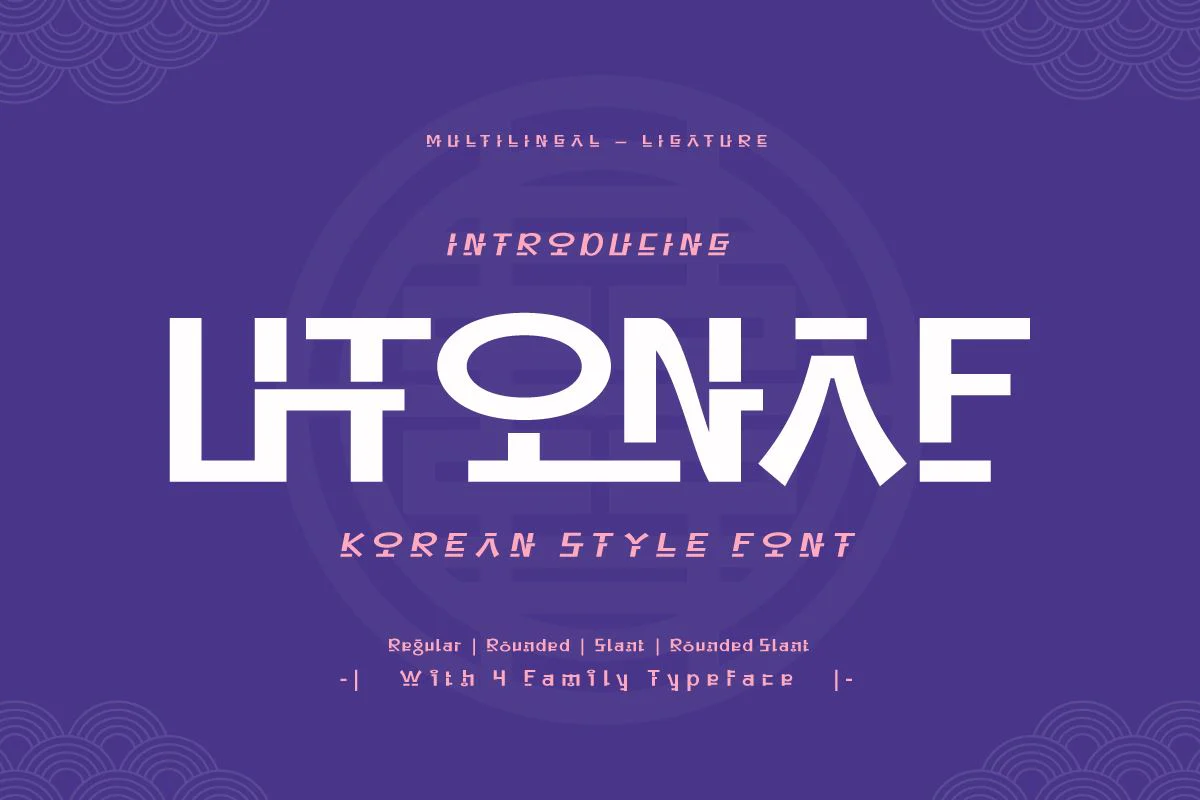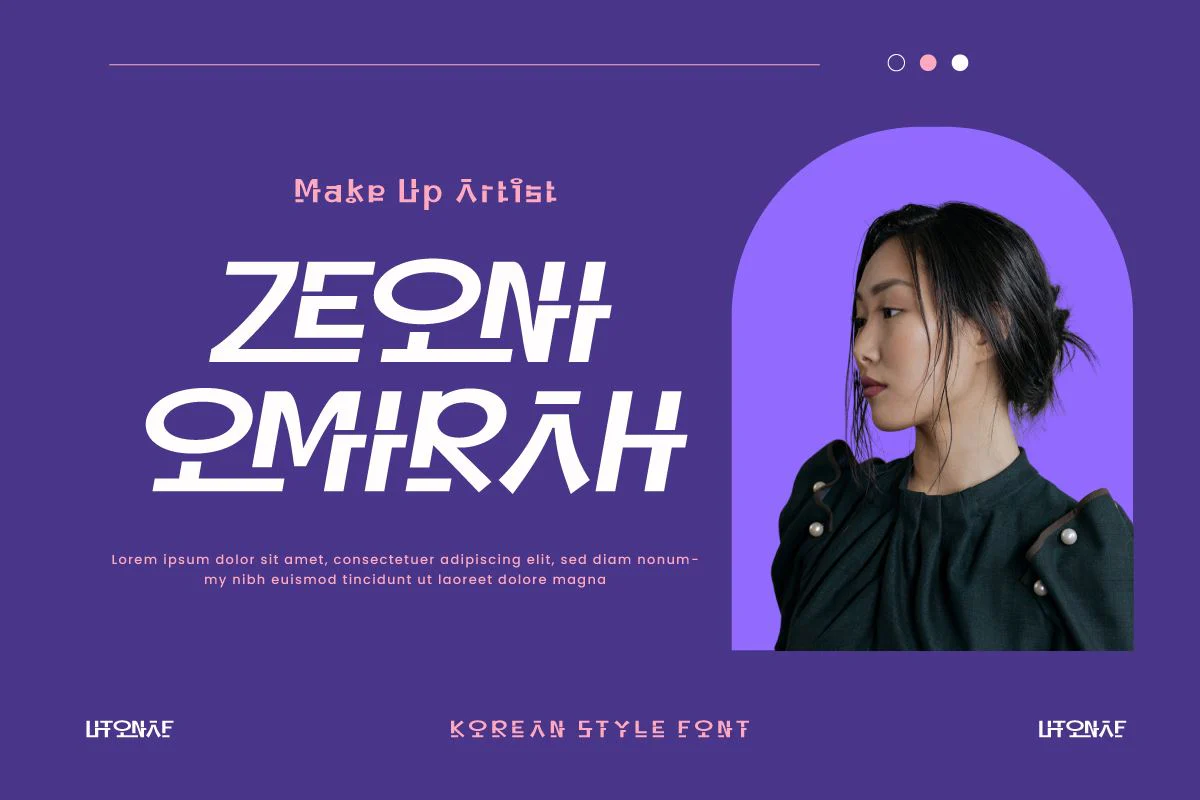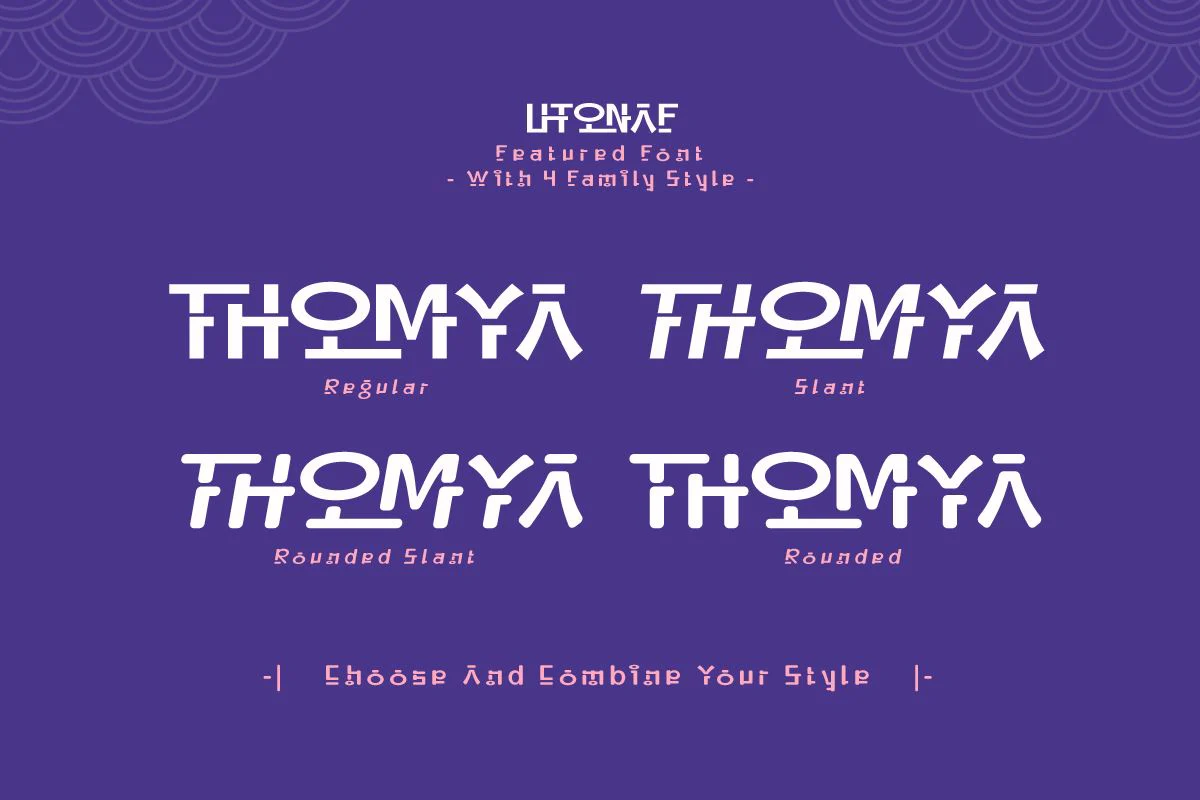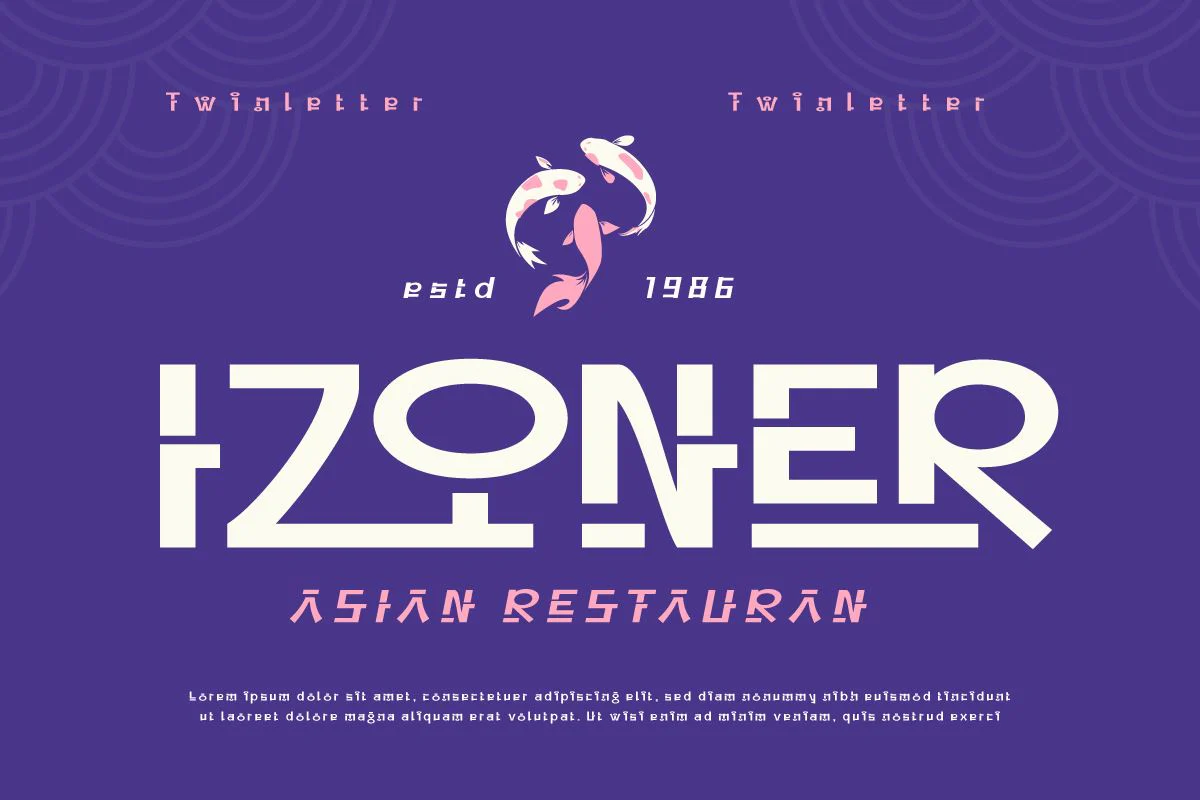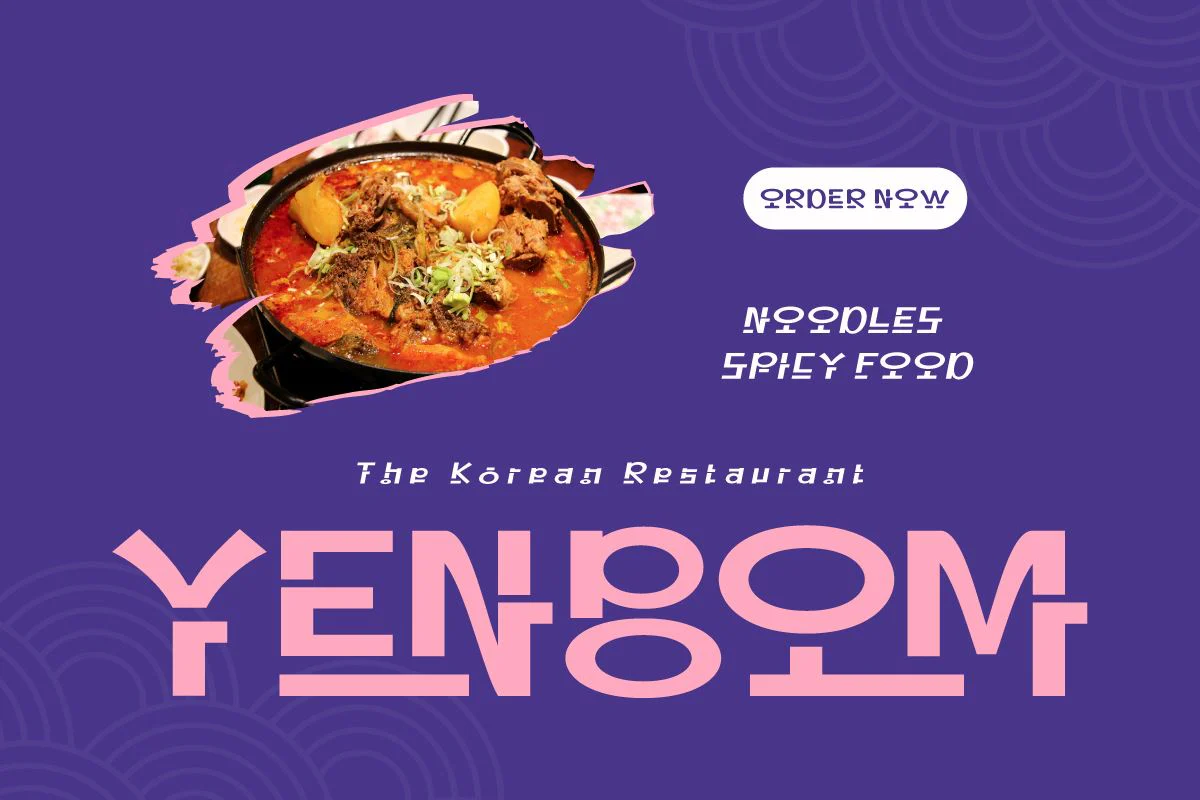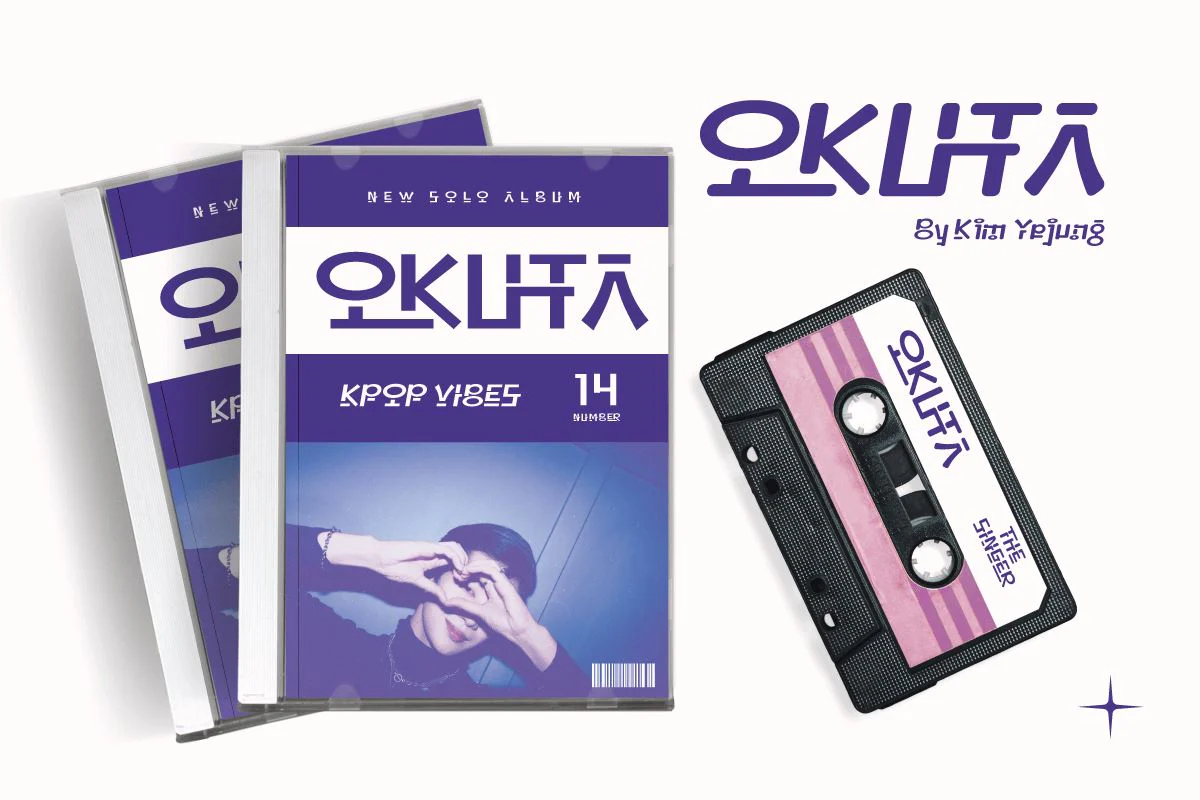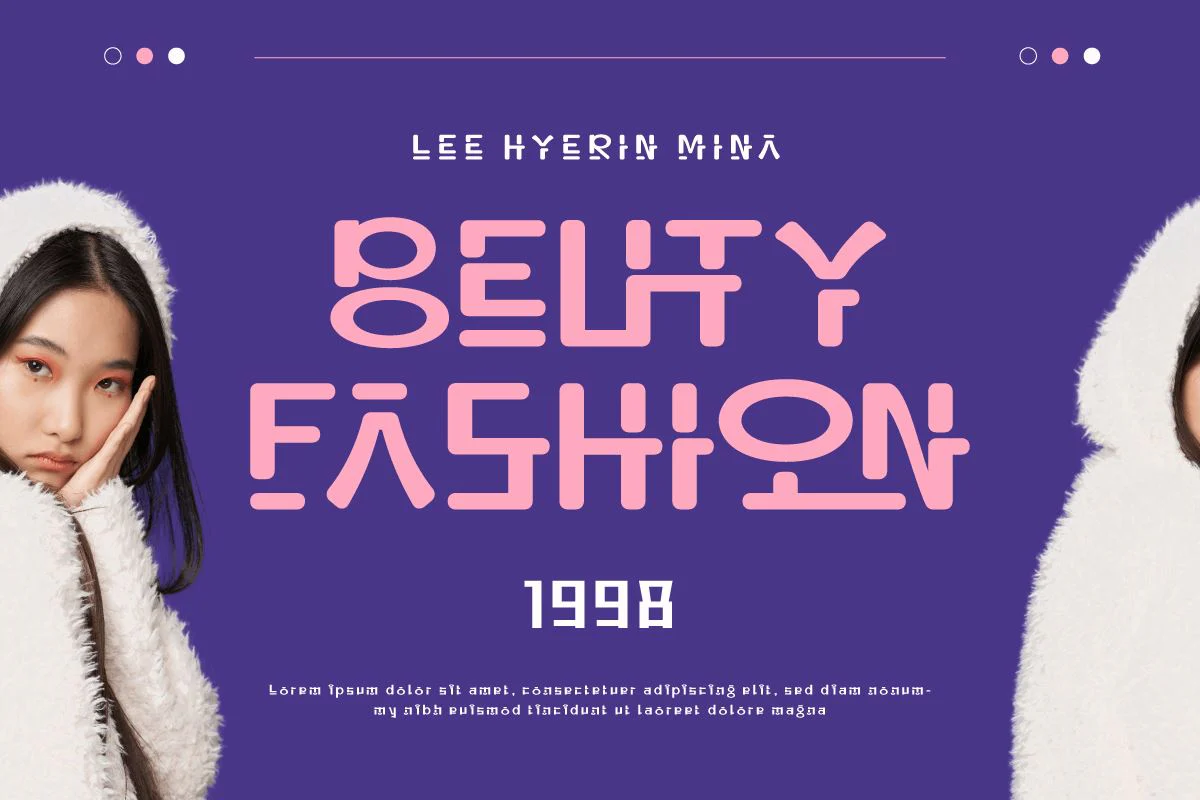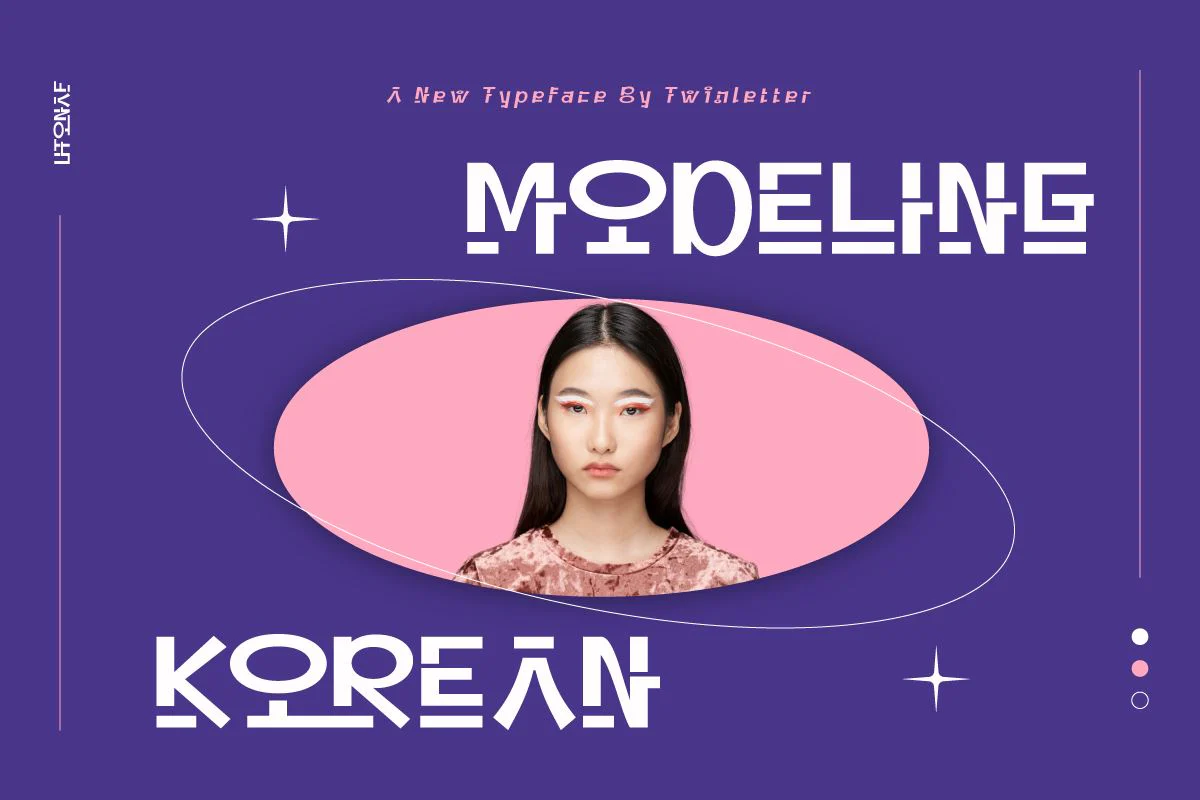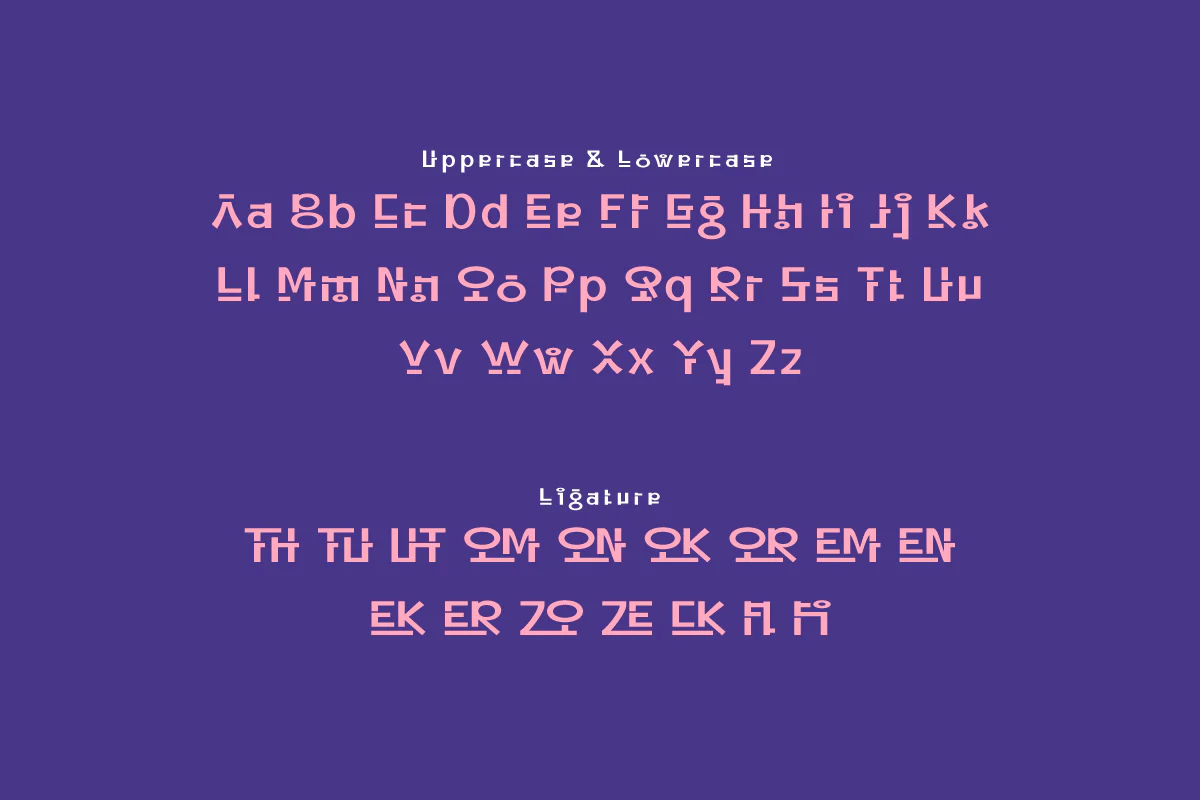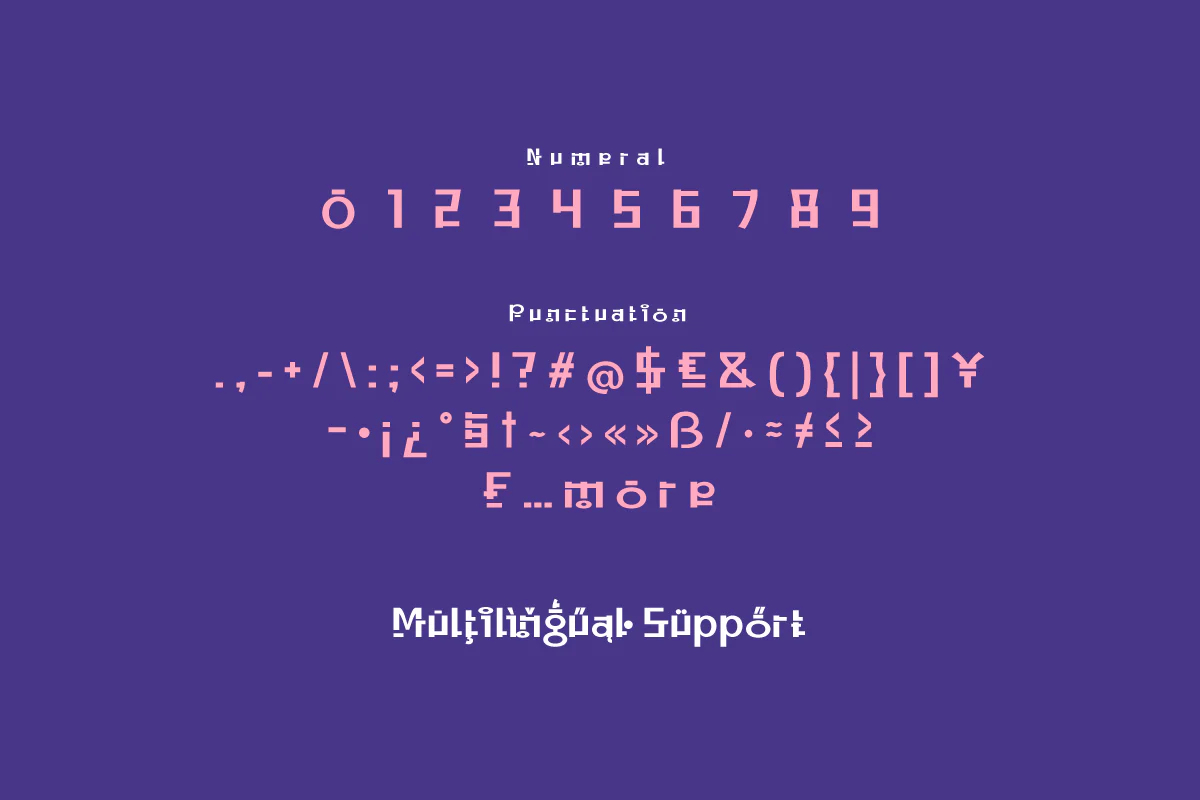
Utonaf - Korean Style Font
Utonaf is a bridge between Korean elegance and design modernity, bringing a stunning Asian touch to every letter. With a strong yet elegant design, this font is suitable for a variety of branding projects, logos, and special events that want to embrace the beauty of Korean culture. Utonaf takes you on an enchanting journey through the beauty and charm of Korean traditions. Let your work shine with the splendor of Asian culture with Utonaf, a font that reflects the beauty of the past and the sophistication of the present.